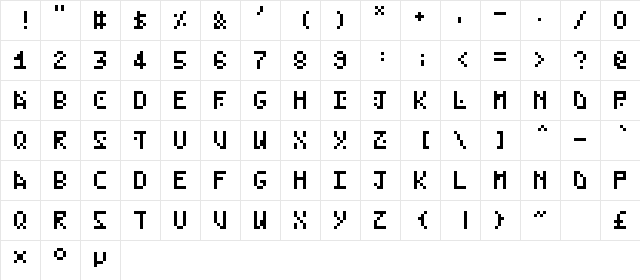
RetroBound Medium
Design Context for RetroBound Typeface
RetroBound has the warm character of retro typography — evoking diners, record sleeves, and the golden age of print advertising.
Font Pairing: Combine RetroBound with a simple slab or neutral sans — period-accurate companions reinforce the vintage feel without competing for attention.
Pro Tip: Lean into RetroBound's period character by pairing it with aged paper textures, muted colour palettes, and vintage illustration styles.